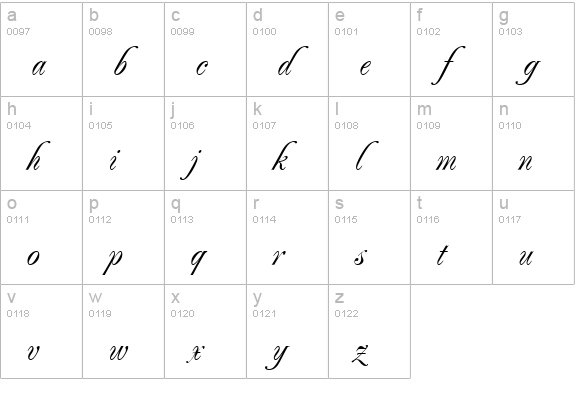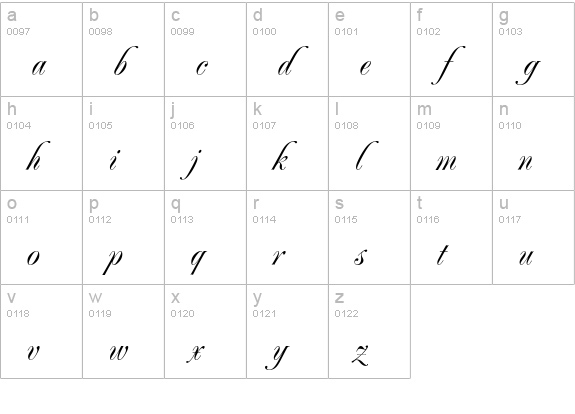
PopplResidenz Light Font Details
PopplResidenz Light is a refined, elegant variant in the PopplResidenz typeface family \xE2\x80\x94 well suited to elegant body text, refined sub-headings, and luxury branding.
PopplResidenz Light is a modern and elegant font that exudes sophistication and style. With its clean lines and balanced proportions, this font is perfect for conveying a sense of professionalism and refinement in your design projects. The light weight of the font gives it a delicate and airy appearance, making it ideal for use in titles, headings, and other display purposes. What sets PopplResidenz Light apart is that it is not only a high-quality font, but it is also free to download. You can easily access this stunning typeface at FontsMarket.com, where you can add it to your font collection without any cost. Whether you are working on a branding project, editorial design, or any other creative endeavor, PopplResidenz Light is a versatile and stylish choice that will elevate your work to the next level. Don't miss out on the opportunity to enhance your designs with this beautiful and freely available font.